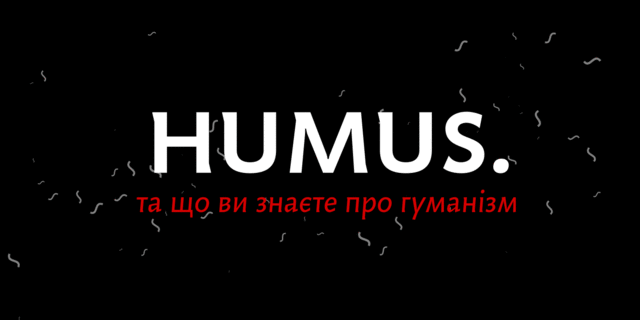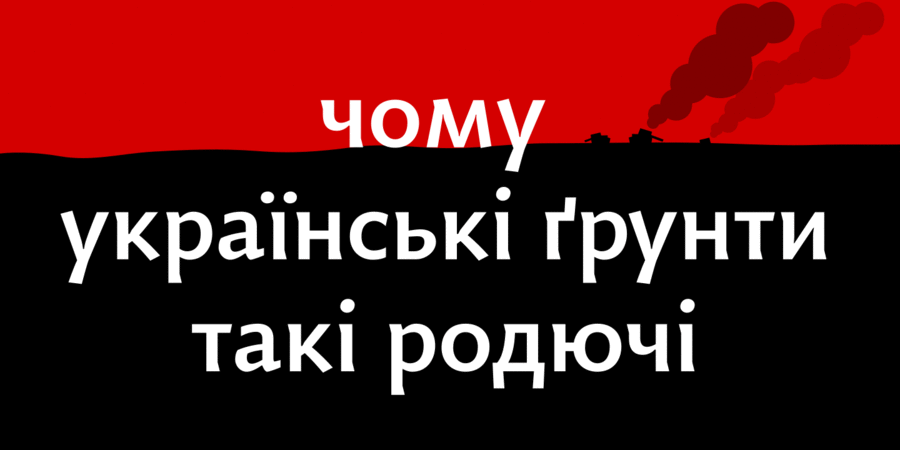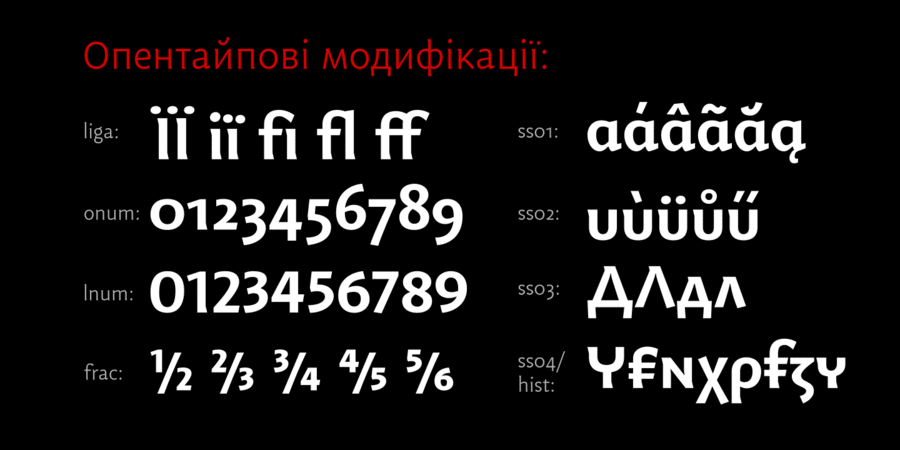
About HumusUkrainian humanistic semiserif of universal purpose. Thanks to humanistic proportions and somewhat calligraphic sharpness, the typeface unobtrusively disturbs the eye, while remaining at the same time a “strong” modern grotesque. Asymmetric serifs, distinctive letters and alternative glyphs give the font a Ukrainian flavor. The character set includes Slavic Cyrillic, European Latin and Monotonic Greek. Humus contains traditional and original ligatures, numeral variants, fractions, stylistic and historical alternatives. The typeface was designed by Andrij Shevchenko in 2007-2022.
Associations for font family HumusTypeface personality and character:
easy, urban, clear, high-quality, confidence, educated, humanitarian, cultural, noble, conservative, traditional, pretentious, artistic, silver, masterful, aristocratic, historical, dynamic, clever, sharp, beautiful, expressive, distinctive, cutting, crisp, original, interesting, creative, unusual, polite, orderly, regardful, sacral, alive, heroic, knightly, daring, legendary, old-fashioned, ancient, beery, tribal, stone, Christian, religious, solid, motivating, strong, diligent, cinematic
society, city, diet, clothes, interior, ASMR, Instagram, education, design, literature, culture, museum, library, art, prose, poetry, music, heraldry, wine, silver, history, monument, memorial, painting, castle, concert, legend, Bible, beauty, adventures, epos, headstone, sculpture, restaurant, tattoo, sword, beer, tavern, pub, trophy, reward, cheese, computer game, helmet, cards, bank note, coin, aesthetics, dinner, landscape, cinema, rock Typeface associated with age: